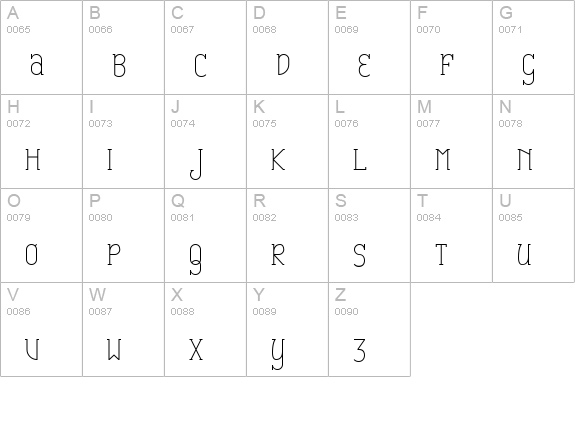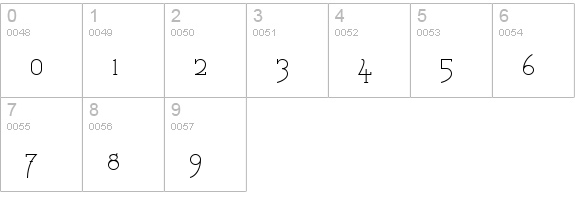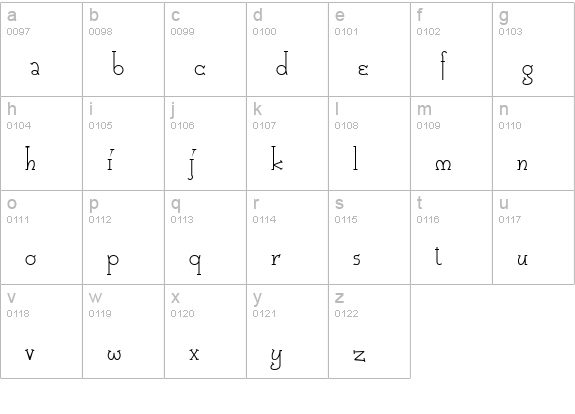
Catharsis Macchiato Font Details
Indulge in the soothing embrace of Catharsis Macchiato font, a delightful blend of elegance and modernity. With its sleek lines and stylish curves, this font exudes a sense of refinement and sophistication. Perfect for adding a touch of class to your designs, whether it be for branding, invitations, or social media graphics. What makes Catharsis Macchiato font even more appealing is that it is completely free to download at FontsMarket.com. Yes, you read that right - you can enhance your projects with this stunning font without spending a penny. Embrace the beauty and versatility of Catharsis Macchiato font today and elevate your designs to new heights.